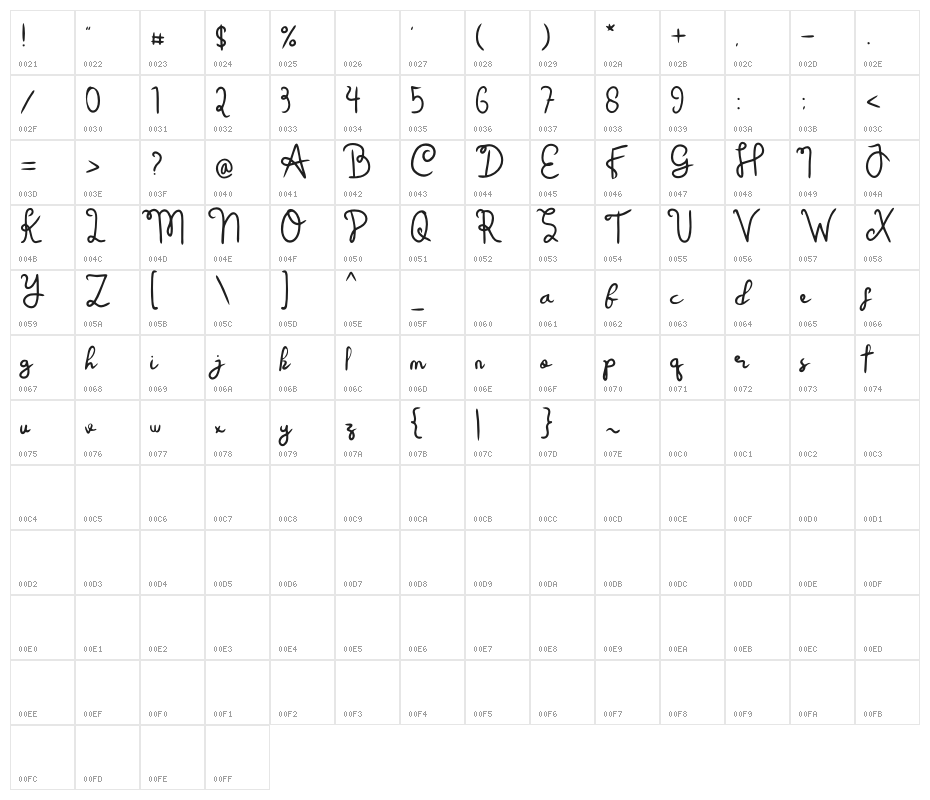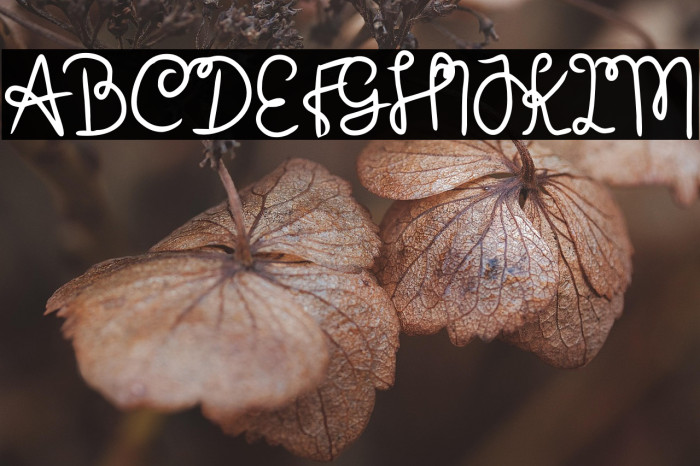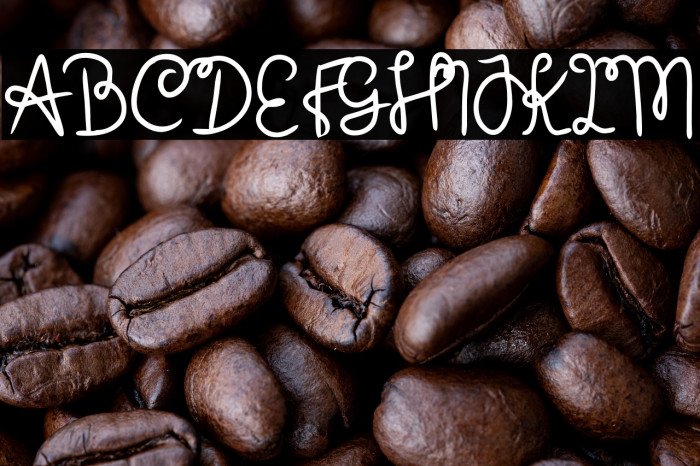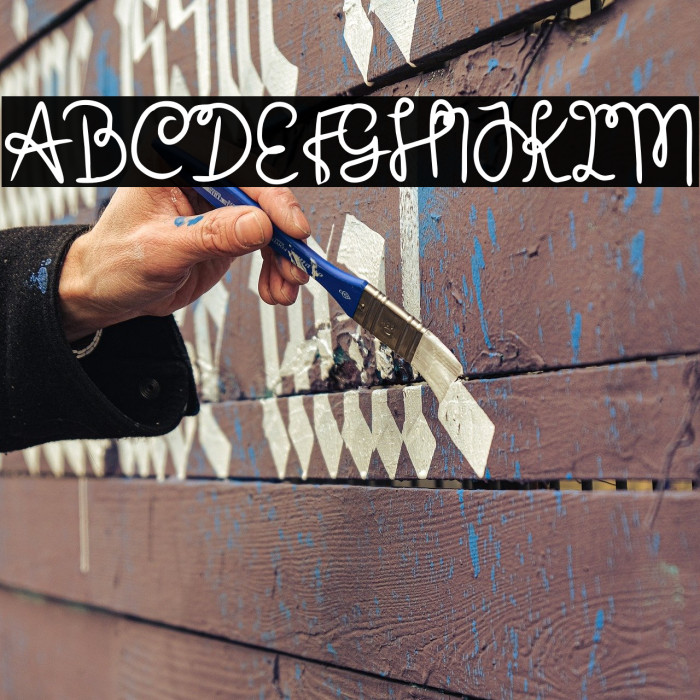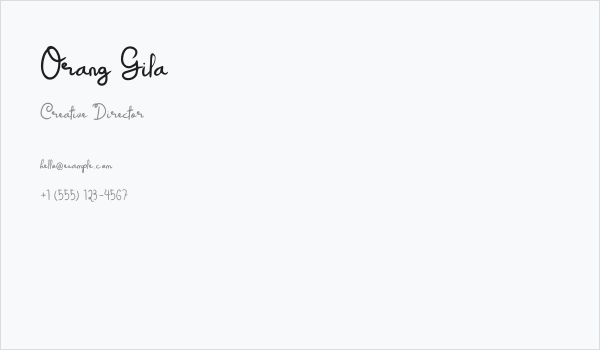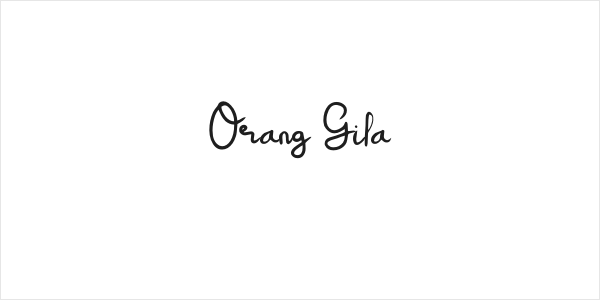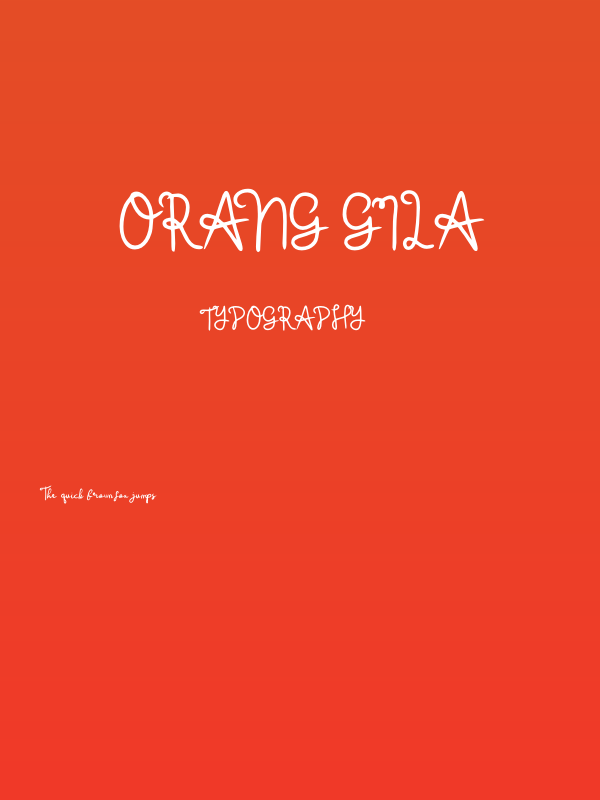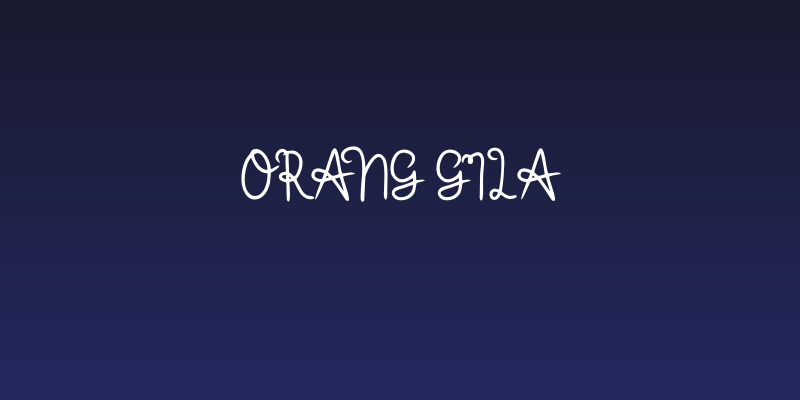
Orang Gila Font
Orang Gila Description
This font features a playful and whimsical style, characterized by its flowing, cursive-like letterforms. The uppercase letters are bold and dynamic, with a unique looping structure that adds a sense of movement and energy. The lowercase letters maintain a consistent style, with rounded edges and a slightly informal appearance. Numbers and special characters are designed to match the playful aesthetic, making them suitable for creative and artistic projects. The overall design is both eye-catching and legible, making it ideal for use in headlines, posters, and branding materials where a fun and engaging look is desired.
| Use Case | Headlines, Posters, Branding |
| Proposed Projects | Ideal for creative projects such as children's books, playful branding, event invitations, and artistic posters. |